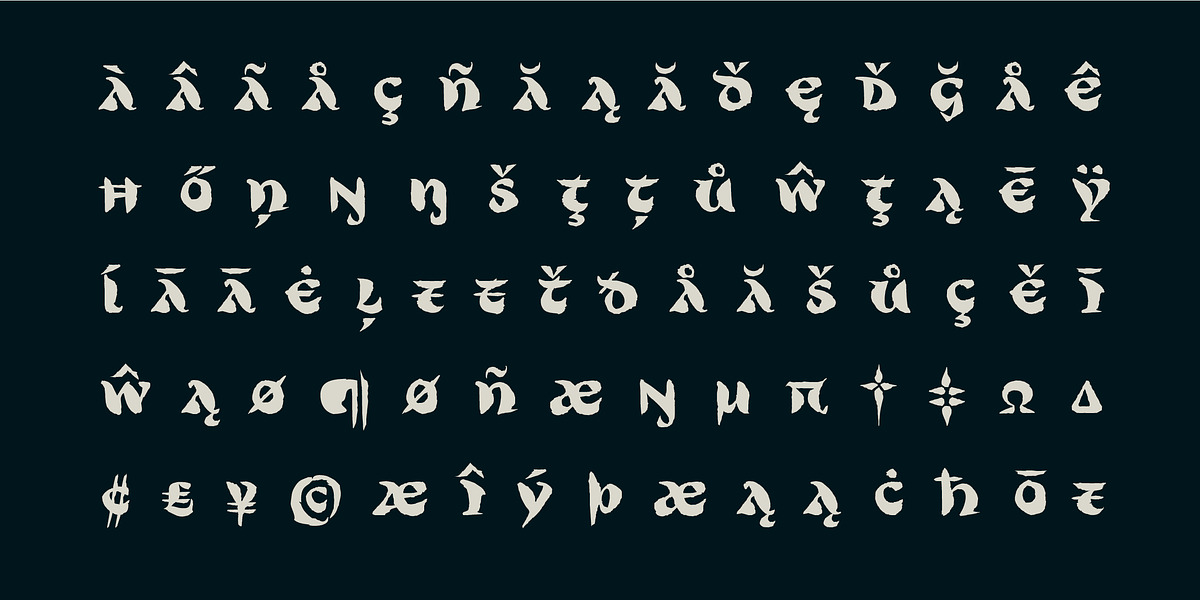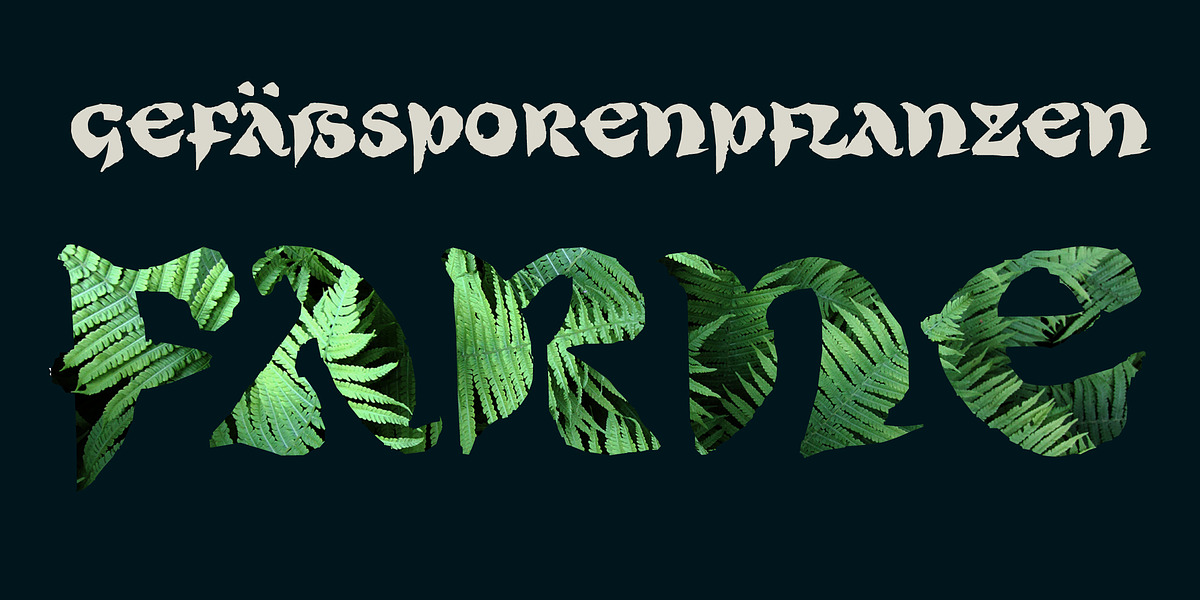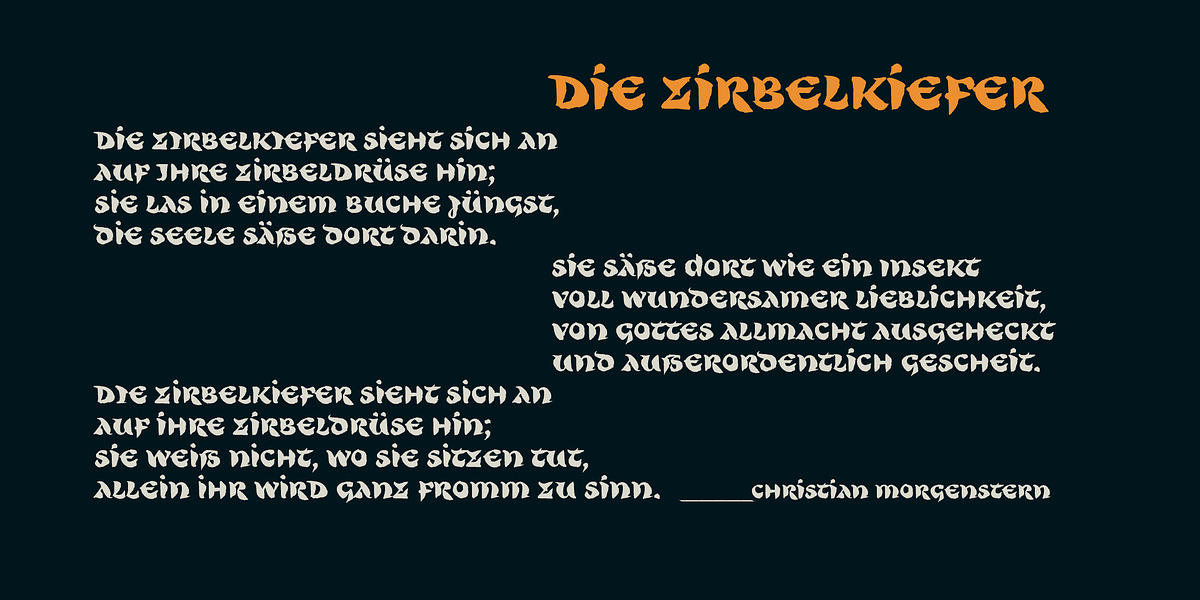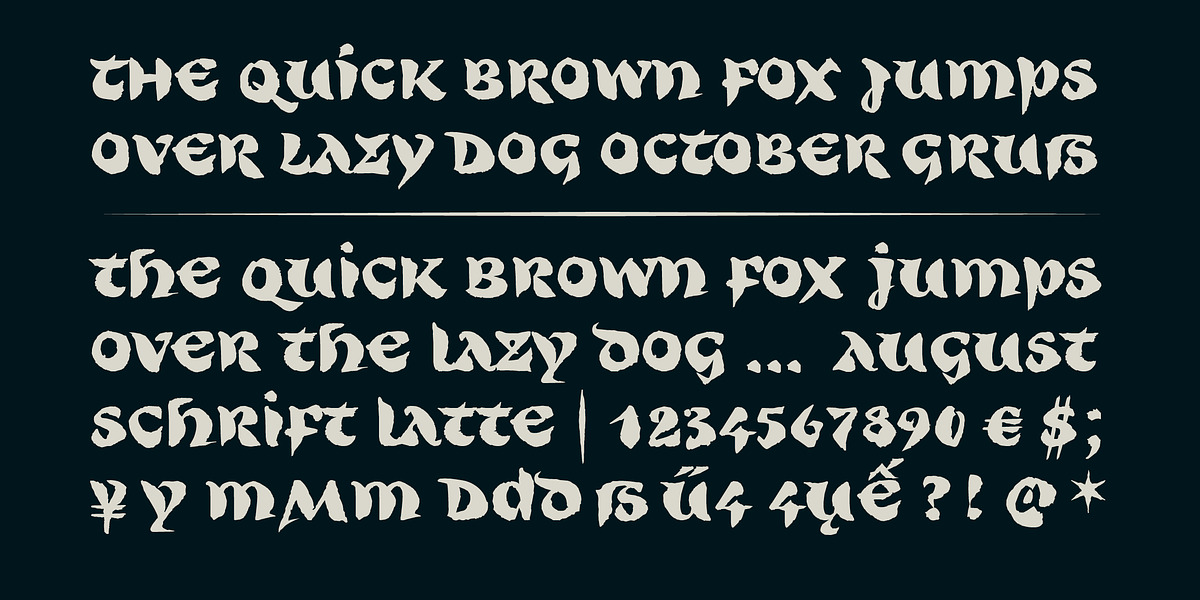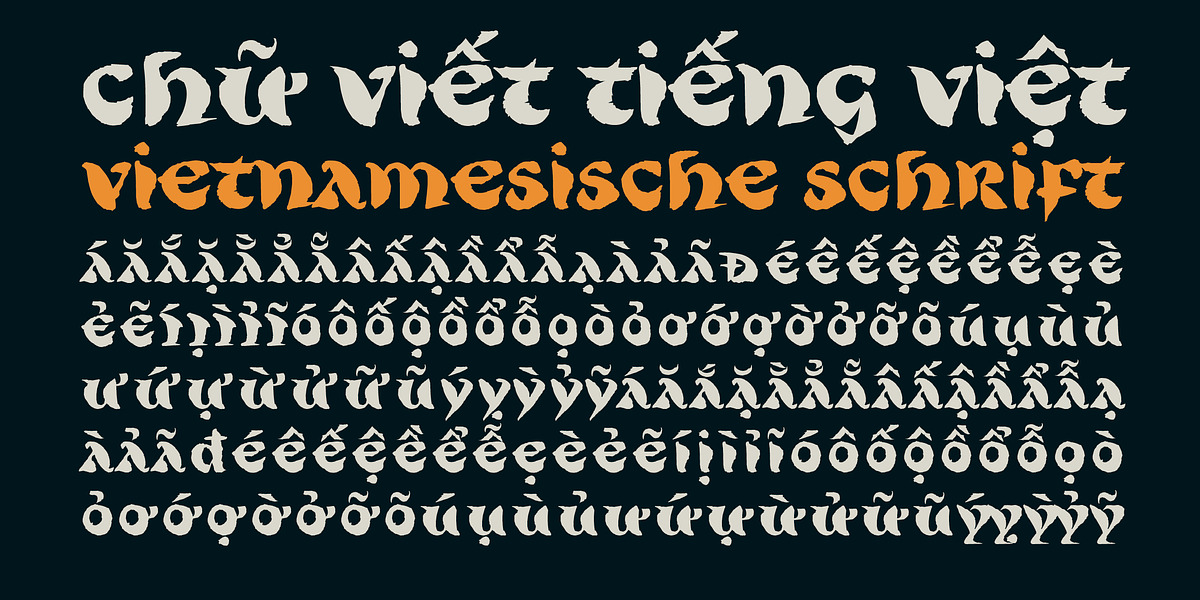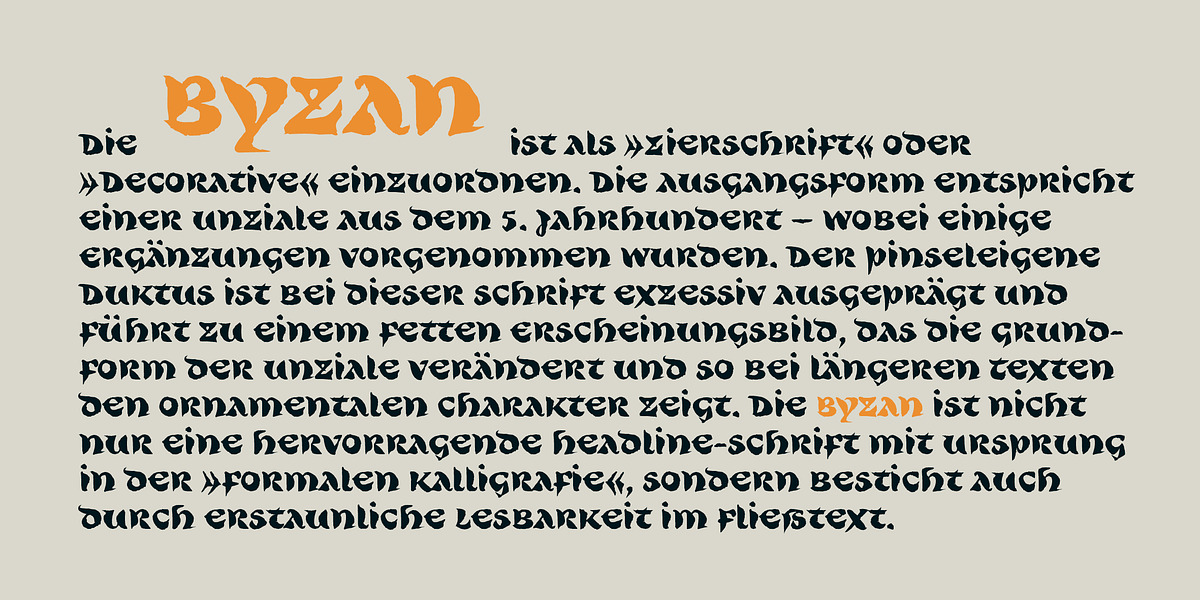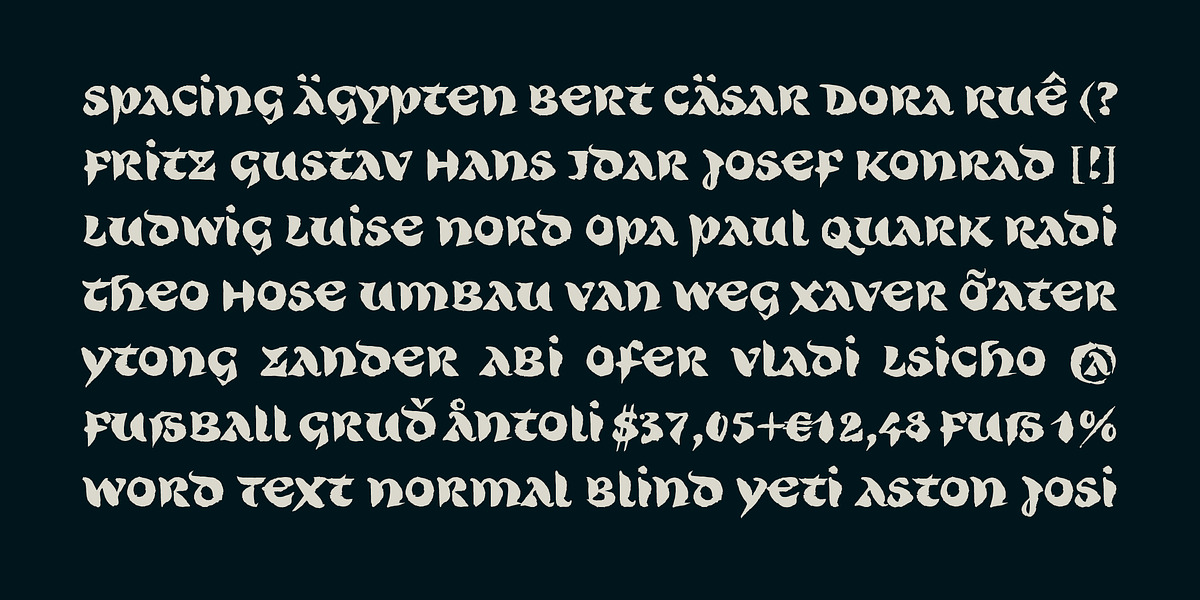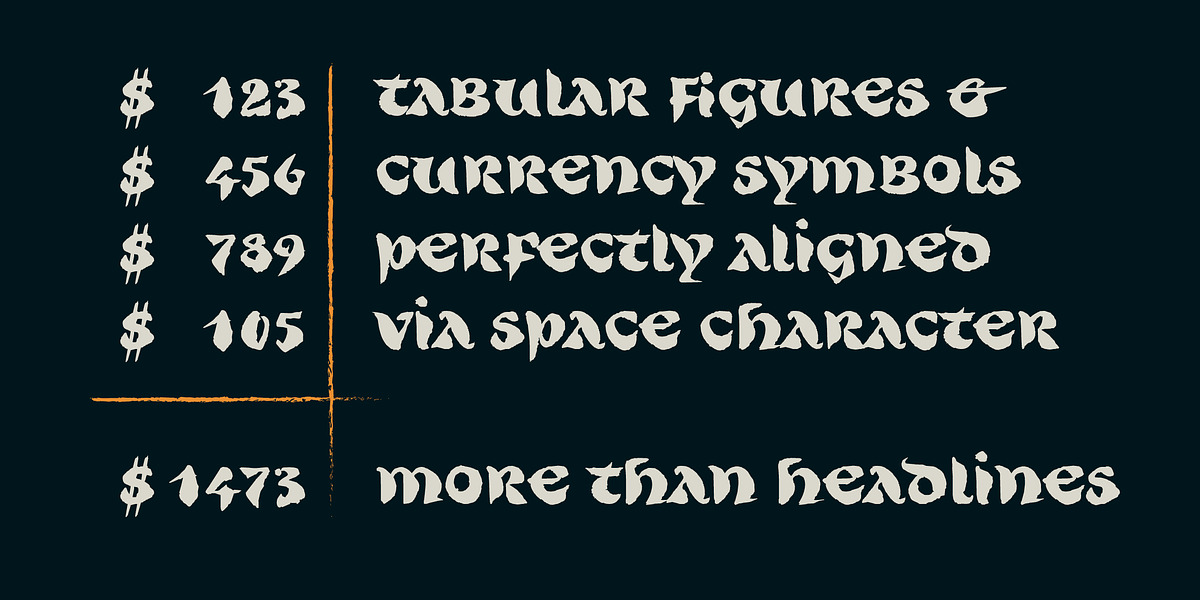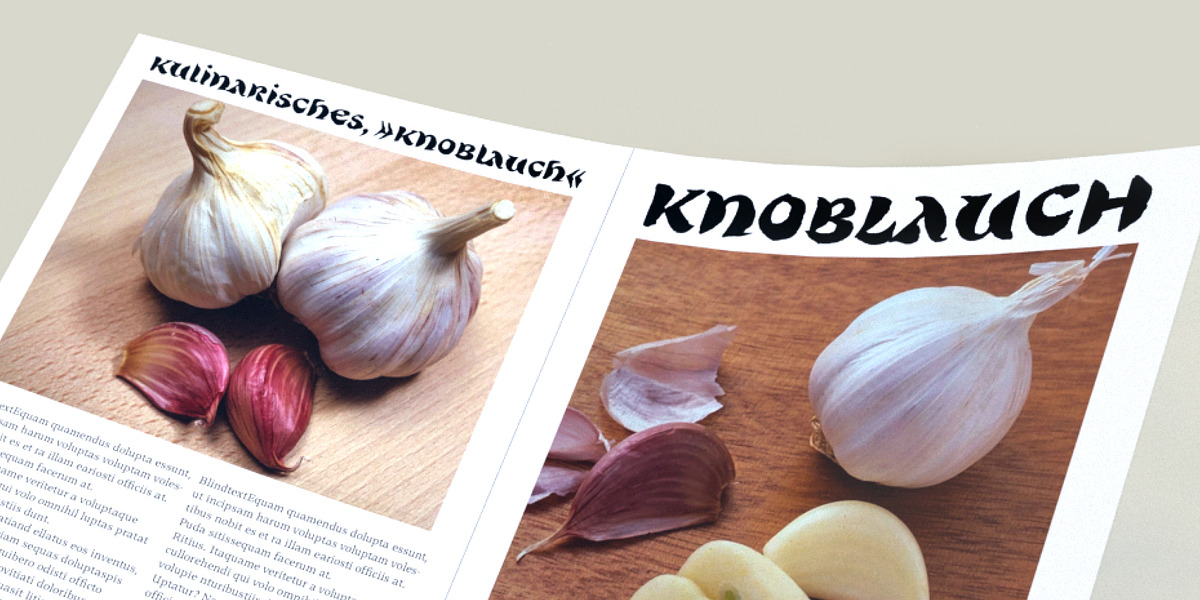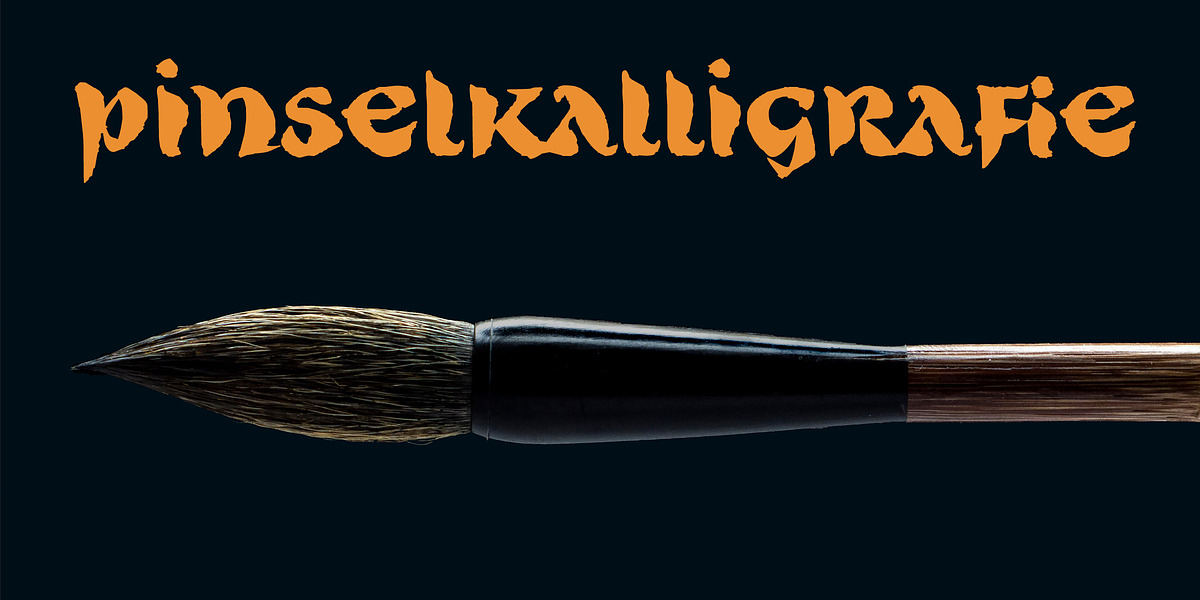
Byzan
Byzan is an all-caps brush display font that draws inspiration from historical uncial scripts. Its brushed texture gives it a bold and decorative feel, making it suitable for headlines, branding materials, and posters.